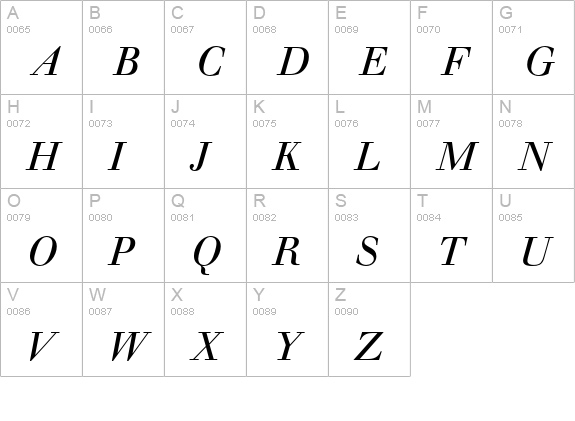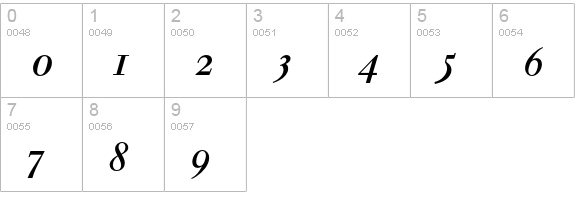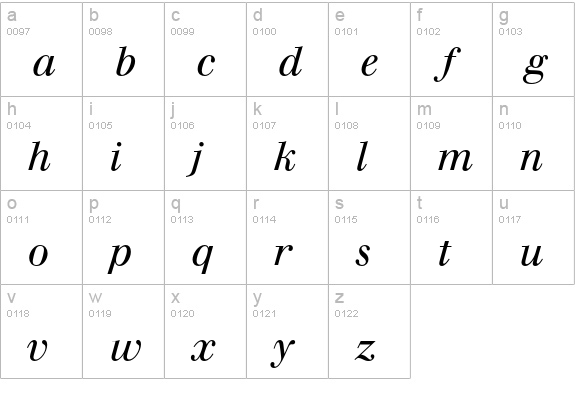
Berthold Walbaum Book Italic OsF Font Details
Berthold Walbaum Book Italic OsF is a comfortable, highly readable, italic variant in the Berthold typeface family \xE2\x80\x94 well suited to long-form body text, articles, and editorial content.
Berthold Walbaum Book Italic OsF font is a stunning typeface that effortlessly combines elegance and readability. With its delicate curves and graceful letterforms, this font exudes a timeless beauty that is perfect for any project requiring a touch of sophistication. Designed by the renowned typographer Berthold Walbaum, this font is a true testament to his mastery of the art. The italicized version of this font adds a touch of flair and elegance, making it ideal for bringing a sense of style to headings, titles, and other prominent text elements. What sets Berthold Walbaum Book Italic OsF font apart is not only its exceptional design, but also its accessibility. This font is freely available to download at FontsMarket.com, making it easily accessible to designers, creatives, and enthusiasts alike. Whether you're working on a personal project or a professional endeavor, this font is a versatile tool that will elevate your designs to new heights. With its OpenType features, Berthold Walbaum Book Italic OsF font offers a range of options to customize and enhance your typography. From ligatures to alternate characters, this font provides you with the tools to create unique and captivating compositions. The legibility of Berthold Walbaum Book Italic OsF font is outstanding, even at smaller sizes. Each letter is meticulously crafted to ensure clarity and readability, making it a reliable choice for body text in books, magazines, and other long-form content. Whether you're designing a book cover, branding materials, or a website, Berthold Walbaum Book Italic OsF font is a versatile and elegant choice that will add a touch of sophistication to your project. Its freely available download at FontsMarket.com makes it easily accessible to all, allowing you to bring a touch of class to your designs without any barriers. In conclusion, Berthold Walbaum Book Italic OsF font is a remarkable typeface that combines elegance, readability, and accessibility in one package. Its timeless beauty, customizable features, and free availability make it a must-have for any designer looking to create captivating and sophisticated designs.